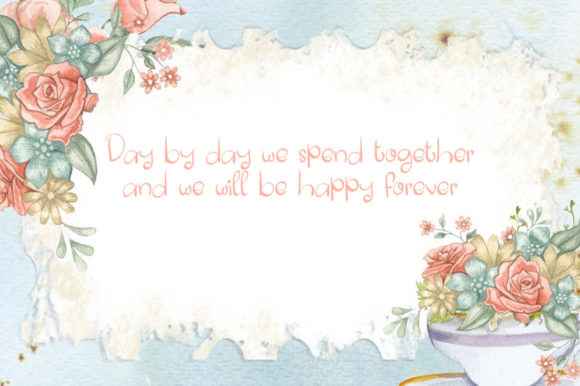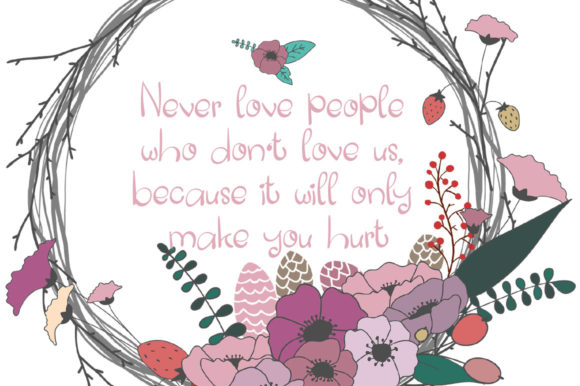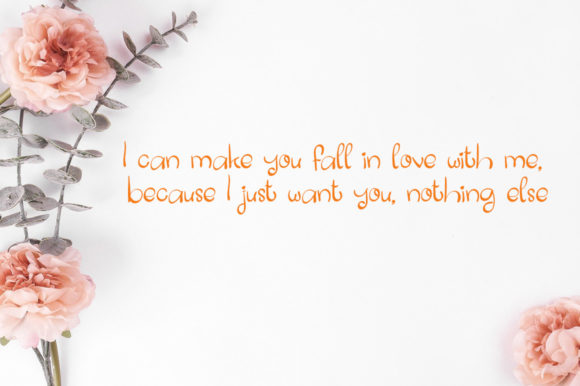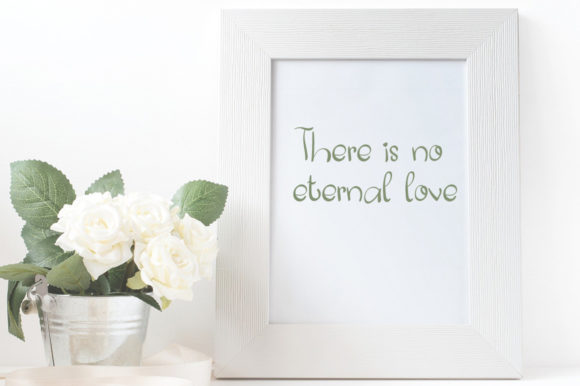
Introduction to School Smile Font
As you sit at your desk, surrounded by scraps of paper and half-finished designs, you’re searching for that perfect font to bring your creative project to life. It’s a moment we’ve all been in – the hunt for the elusive design resource that elevates our work from good to great. And then, like a breath of fresh air, you stumble upon the School Smile Font.
This sweet, delicate, and thin lettered script font is a game-changer for designers. Its lovely and full of life style makes it a wonderful choice for brightening up your designs, adding a touch of whimsy and personality to your work. Whether you’re working on a personal project or a client’s high-quality design, the School Smile Font is sure to bring a smile to your face.
Key Features of School Smile Font
- High-quality design resource suitable for various creative projects, including educational materials and kids’ content.
- Comes with a transparent background, allowing for easy customization and blending with other design elements.
- Features a unique, playful style with a mix of bold and cursive elements, perfect for adding a touch of whimsy to your design.
- Designed with a clear and legible font, making it suitable for use in a variety of contexts, from titles and headings to body text.
Honest Review: School Smile Font
I recently had the chance to use the School Smile Font in a creative project and I must say it was a great addition. ✨ The font is playful and fun, making it perfect for any design that needs a friendly touch.
- Fun and playful design ✨
However, I did encounter some limitations when using the font. ⚠️ The font is not suitable for formal or professional designs, and the bold version of the font can be a bit too thick at times.
Overall, I would say that the School Smile Font is a great resource for designers who are looking for a fun and playful font to add to their creative project. It’s a high-quality design that is easy to use and integrates well into most designs.
The School Smile Font is ideal for various design projects, including:
- School and education-related designs.
- Children’s book illustrations.
- Party invitations and decorations.